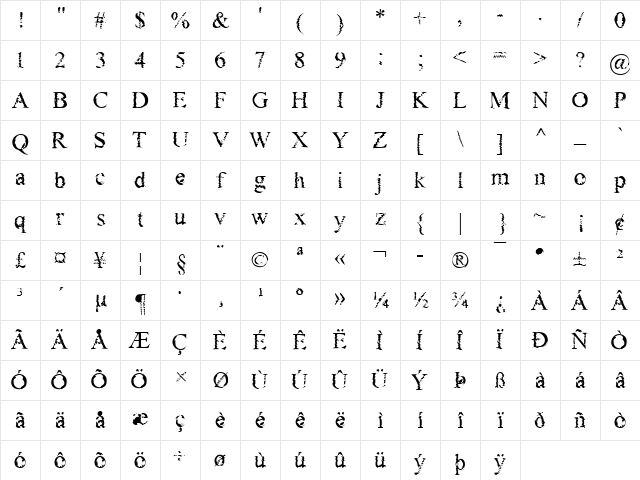
Gouge Normal
Design Context for Gouge
Gouge is a composed and adaptable typeface that performs quietly and consistently across a wide range of design contexts.